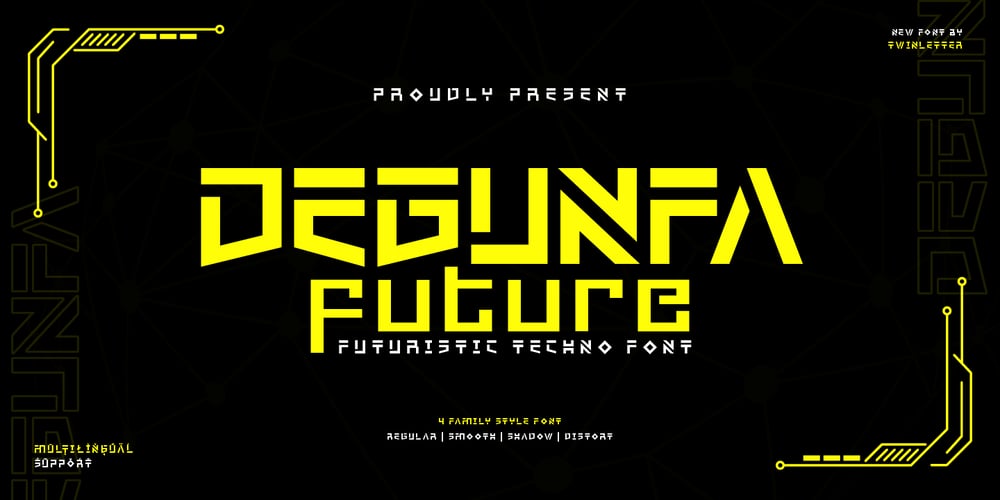
Degunfa Future Font Family was designed by Rozikan and published by Twinletter. Degunfa Future contains 4 styles and family package options. Explore a new era in typography with Degunfa Future, a futuristic technology font that is leading the way forward. Designed to imbue sophistication and innovation, Degunfa Future brings a touch of the future to your design with modern lines and cutting-edge technological elements.Each Degunfa Future letter creates a futuristic and energetic visual, reflecting the speed of today’s technological developments. With sophisticated details and dynamic design, this font provides endless possibilities for a variety of design projects, from technology brand identities to modern website layouts.Degunfa Future’s strength lies in its ability to visualize technology concepts with clarity and appeal. From product presentations to graphic design projects that require a futuristic touch, Degunfa is a compelling choice for embracing visual change.With Degunfa Future, dare to be different and give your designs a future feel. Bring a touch of innovative technology and let Degunfa Future be the key to opening the door to a modern and revolutionary design experience.